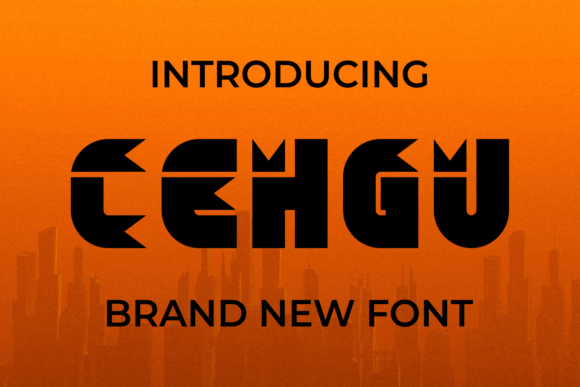
Unleash Your Creativity with the Cehgu Font
Have you ever stared at a blank page, struggling to find the perfect words to bring your vision to life? You’re not alone. We’ve all been there, searching for the right font to give our designs that extra oomph. That’s where the Cehgu Font comes in – a cool and bold display font that’s guaranteed to elevate your creations.
Whether you’re designing a logo, creating a social media post, or crafting a marketing campaign, the Cehgu Font is an incredible asset to have in your toolkit. Its versatility and bold style make it perfect for grabbing attention and making a statement. With the Cehgu Font, you’ll be able to add a touch of sophistication and creativity to any project, giving you the edge you need to stand out in a crowded market.
- Font Family: Cehgu is a sans-serif font family.
- Unique Characteristics: Cehgu features a unique geometric design with clean lines, making it suitable for modern and minimalist designs.
Cehgu Font Review
I’ve had the chance to work with Cehgu Font, and I must say it’s an interesting addition to the font family. Here’s my honest take on it:
- Cehgu Font has a unique, modern aesthetic that can add a touch of sophistication to designs.
- The font’s clean lines and minimalist approach make it perfect for digital interfaces, such as apps and websites.
- Cehgu Font is highly legible, even at smaller font sizes, making it suitable for body text and other large-scale content.
- Cehgu Font lacks the elegance and refinement that some users might expect from a font with its style.
- The font’s minimalism can sometimes make it feel cold and uninviting, especially in print designs.
- There are limited language support and character sets available for Cehgu Font, which can be a limitation for projects requiring multi-lingual support.
Cehgu Font is a decent addition to the font family, but it’s not a game-changer. While it excels in digital designs, its limitations hold it back from being a top choice for print or multi-lingual projects. If you’re looking for a modern, clean font for your digital projects, Cehgu Font is worth considering. However, for more complex or traditional designs, you might want to explore other options.
Cehgu Font is commonly used for:
- Use the Cehgu Font for the main heading, “Love is in the Air”, to create a sense of drama and grandeur.
- Combine the Cehgu Font with a elegant, handwritten script font for the wedding details, such as the date and time.
- Use the Cehgu Font to create a stylized, hand-drawn effect for the cafe’s name, “The Cozy Cup”.
- Experiment with different font sizes and weights to create a sense of hierarchy and balance in the design.
Alternatives to Cehgu Font for Designers
Comparison to Cehgu Font: While Cehgu Font has a unique, handwritten feel, Playfair Display is more refined and sophisticated. Playfair Display is better suited for formal designs, whereas Cehgu Font can work well in more casual or creative contexts.